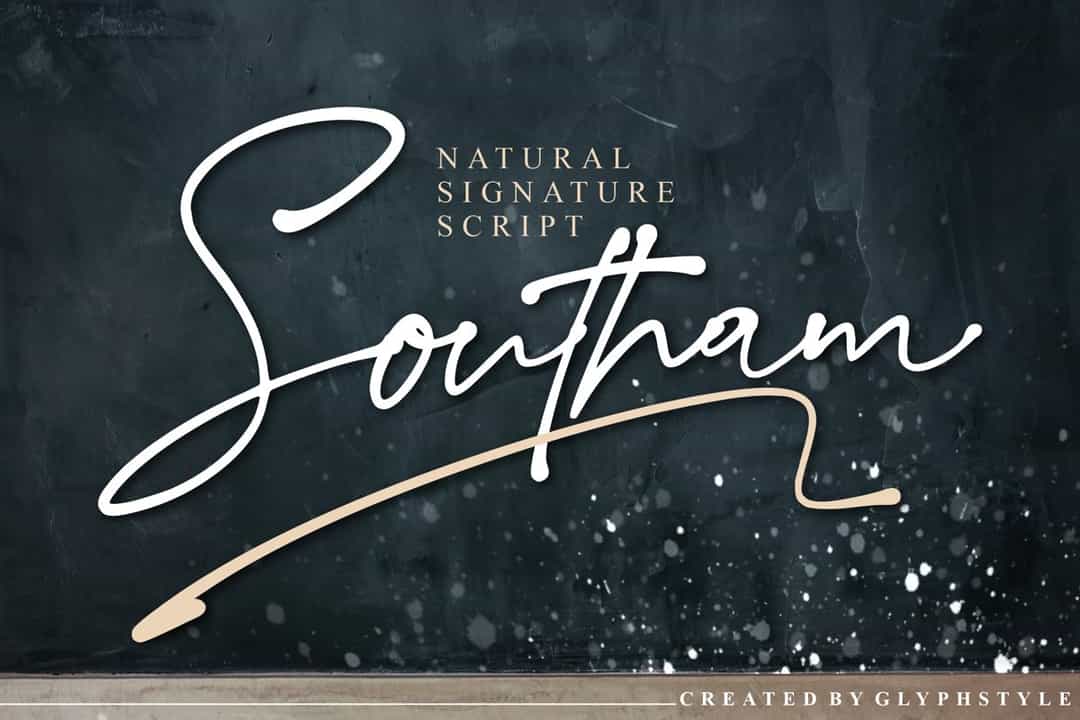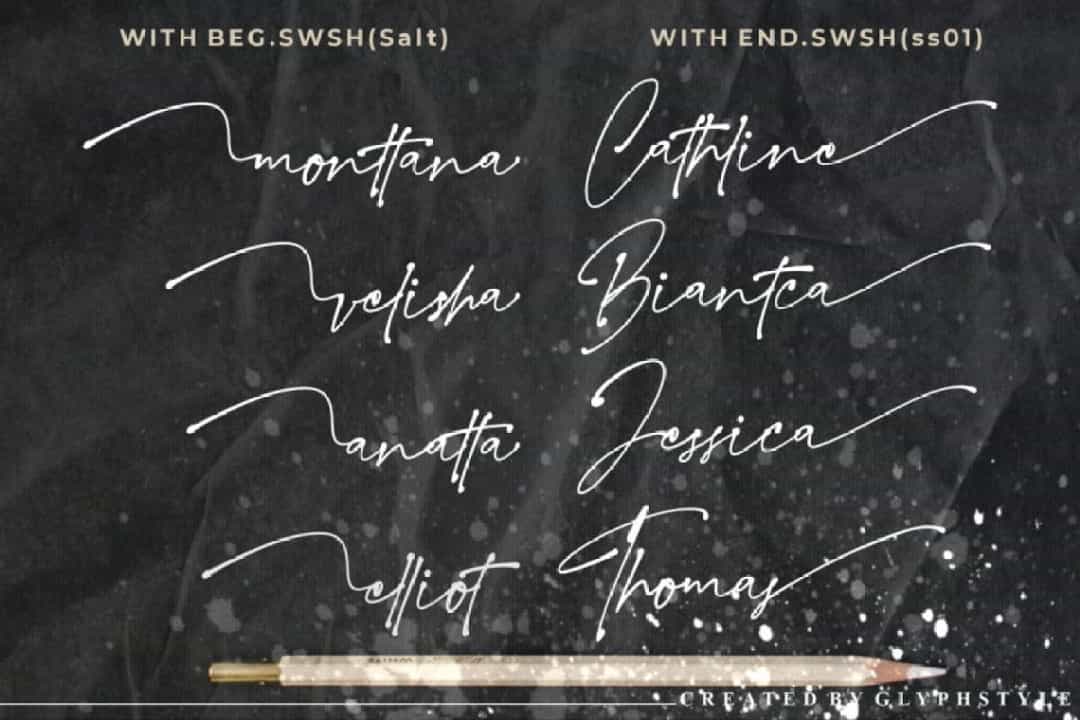
This signature text ink style of Southam has a quite organic flow. These gorgeous fonts have rough hand made scratches on them. Ideal for using on wedding watermarks, logos, interviews, and business cards, as well as other product logos and such like this great font will do the job.